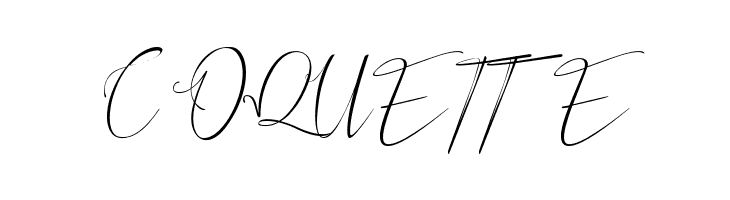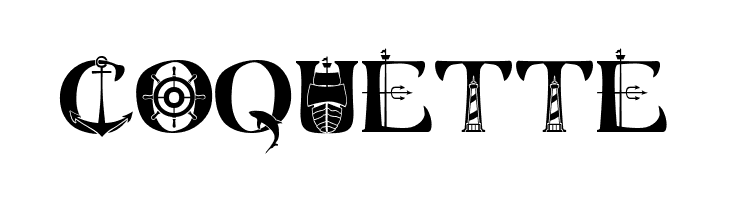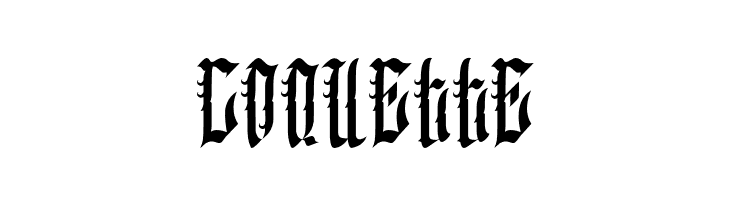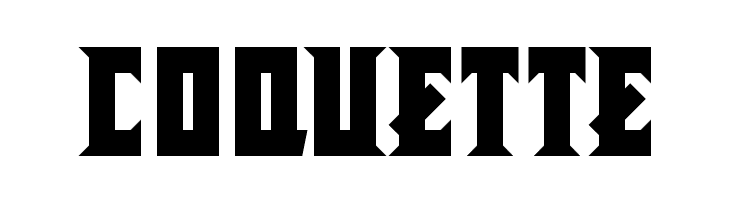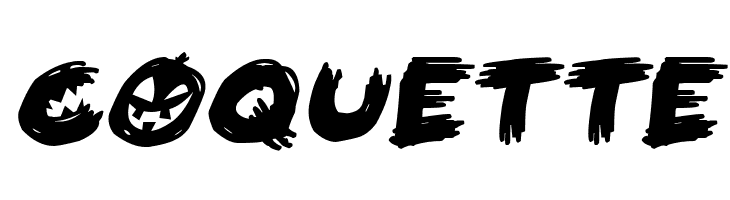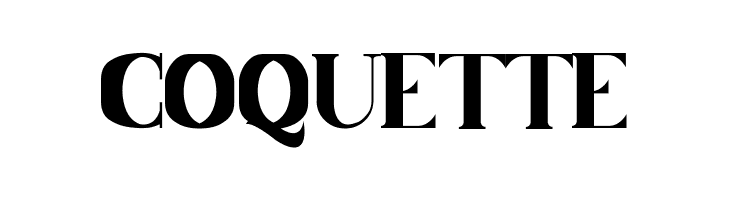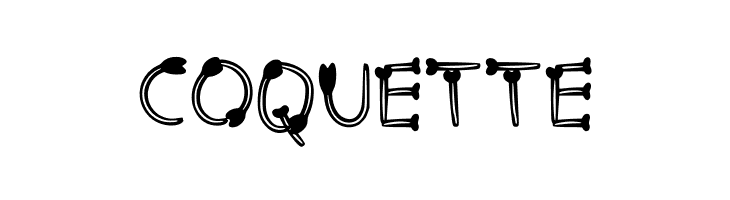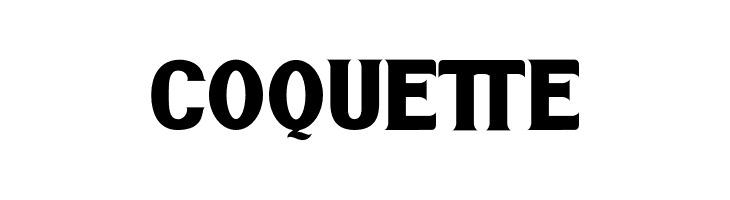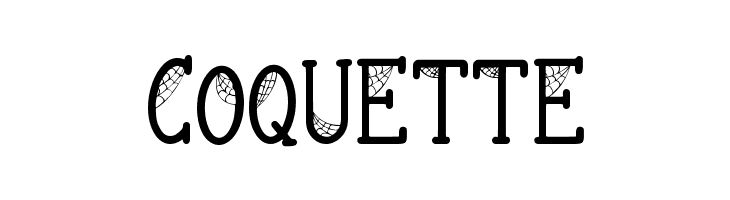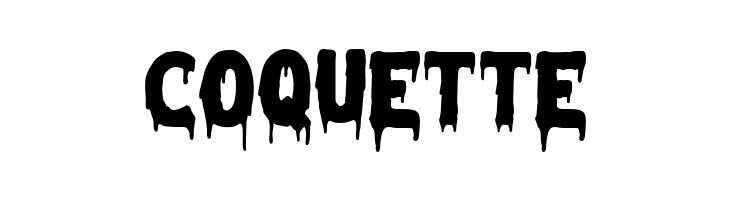
An elegant script font with flowing lines and high contrast, ideal for formal uses.
A decorative font with nautical and mechanical elements, perfect for fantasy-themed projects.
A bold, ornate Blackletter font with sharp serifs and high contrast, ideal for historical or decorative projects.
A bold, angular font with a gothic-modern fusion, perfect for dramatic designs.
A jagged, eerie font perfect for horror themes.
A bold, modern font with sharp angles and smooth curves, ideal for impactful designs.
A playful font with heart-shaped accents, perfect for conveying warmth and love.
A bold, vintage-inspired font with a modern twist, ideal for impactful designs.
A playful, cobweb-themed font perfect for Halloween designs.
A bold, dripping font with a melting effect, perfect for spooky themes.